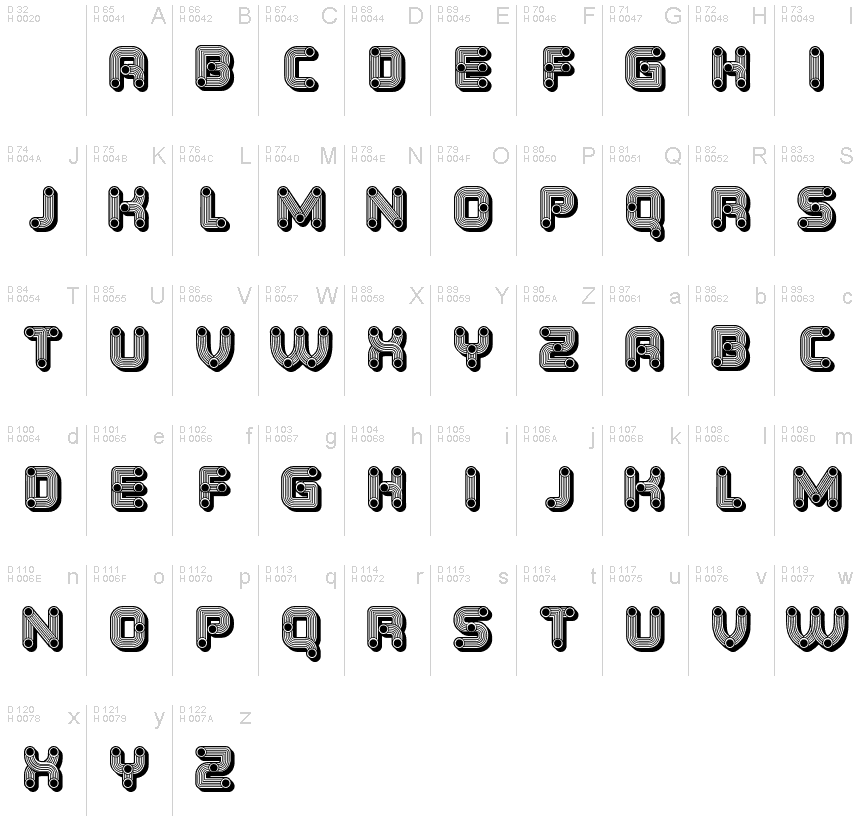
Tubes Regular
Tubes, a bold and eye-catching display font designed by Vladimir Nikolic, exudes an air of creativity and uniqueness. With its decorative style and semi-expanded width, this font is perfect for projects that demand attention and artistic flair. Whether it's designing vibrant logos, crafting striking headlines, or creating standout posters, Tubes will make a statement. Its clean lines and confident presence lend themselves to a wide range of applications, from edgy branding campaigns to modern art exhibitions. Stand out from the crowd with Tubes and let your imagination run wild.